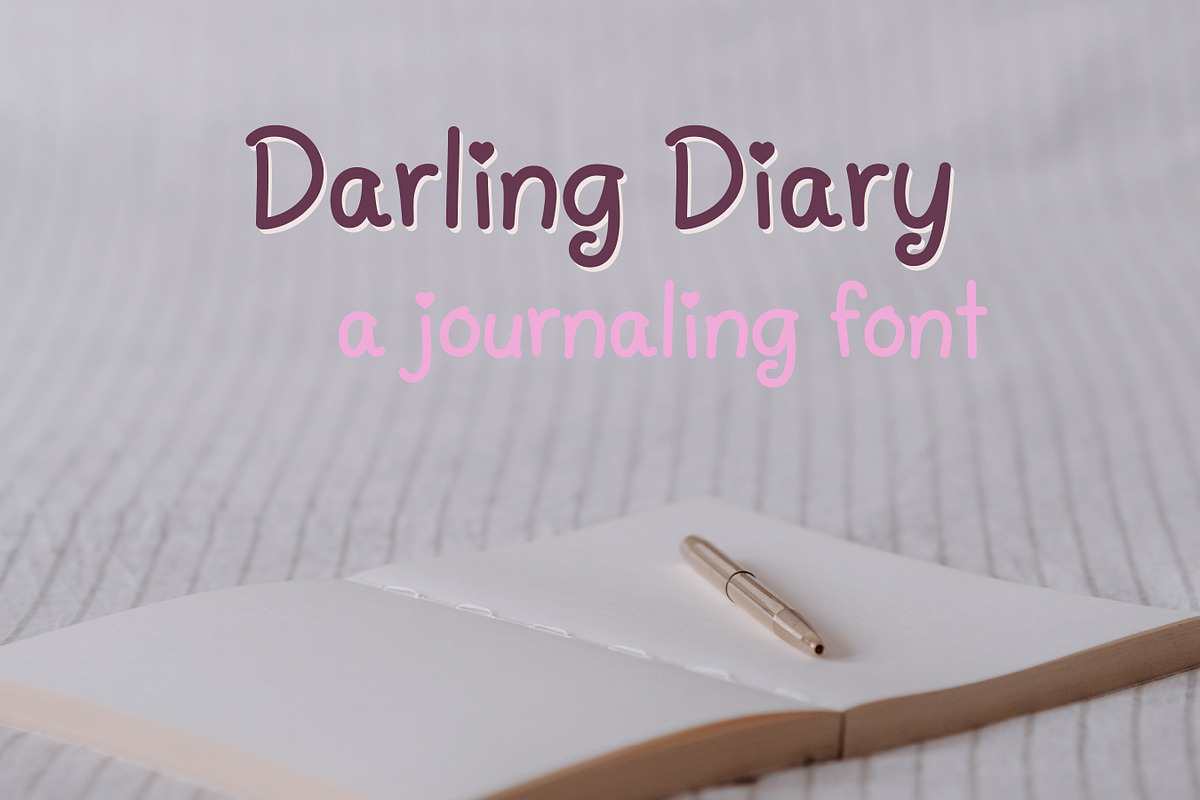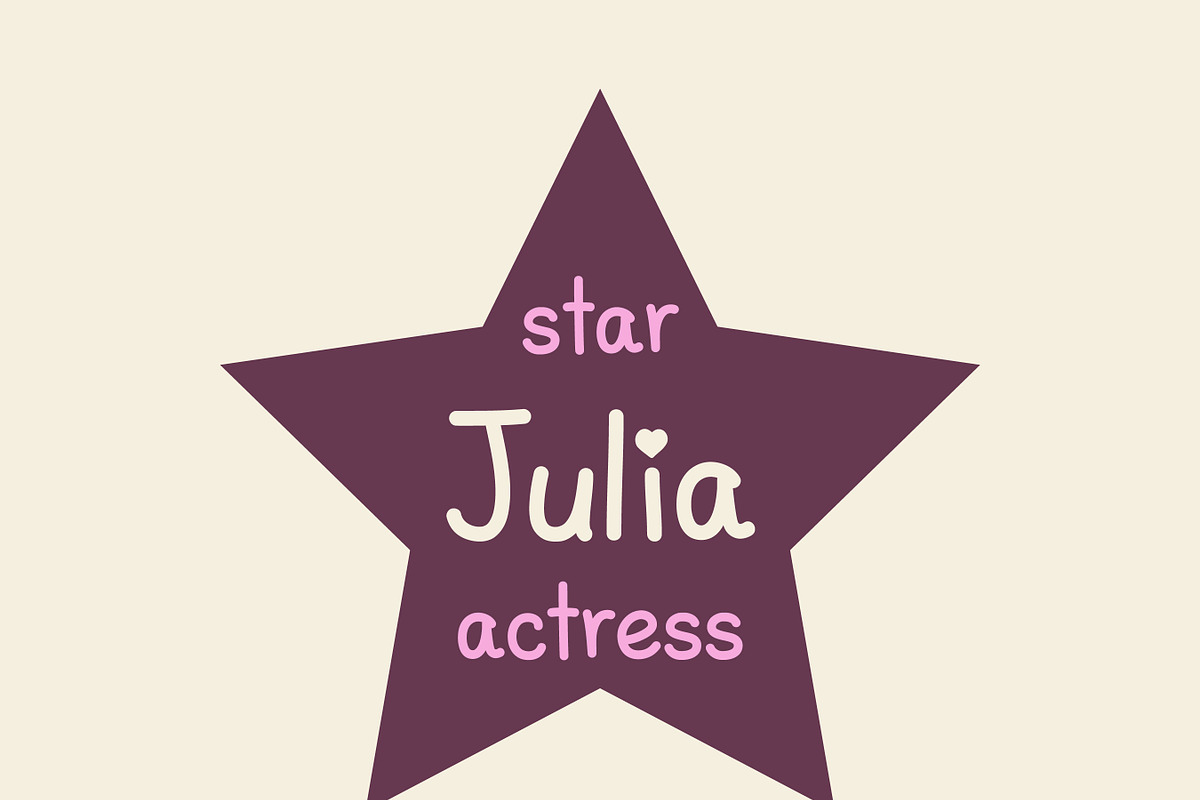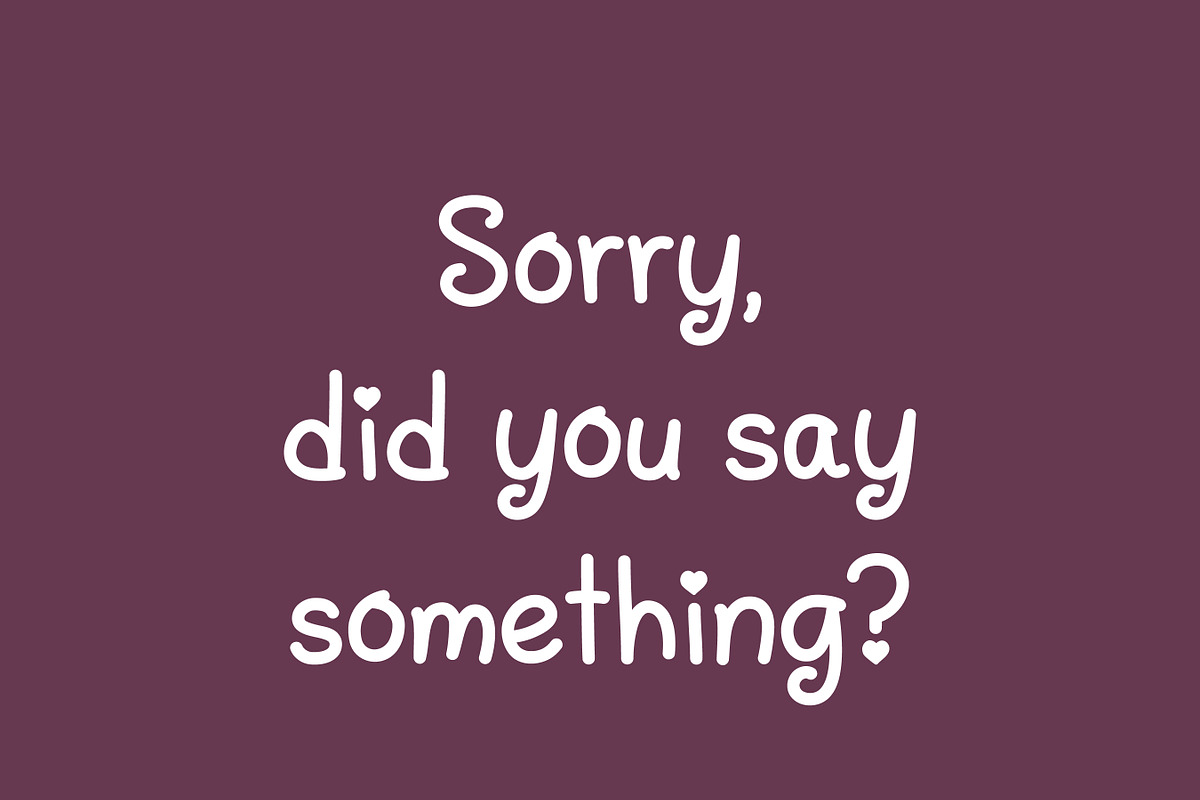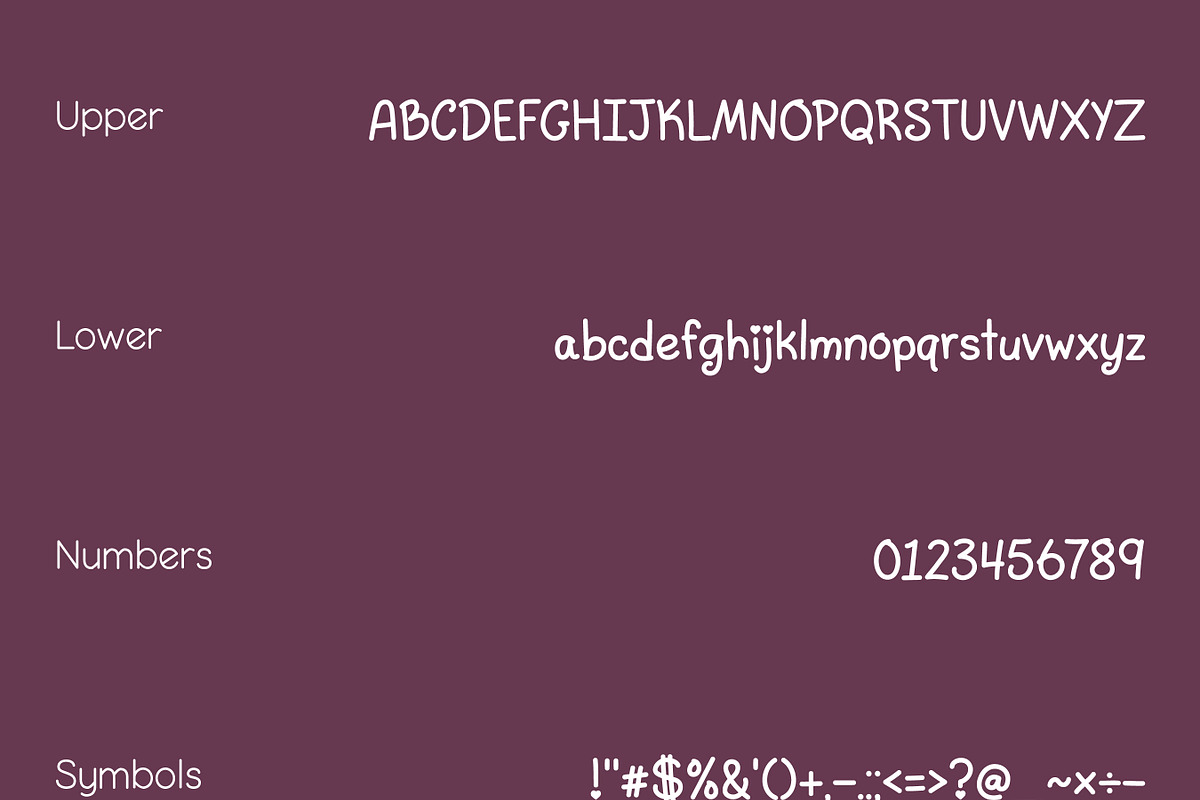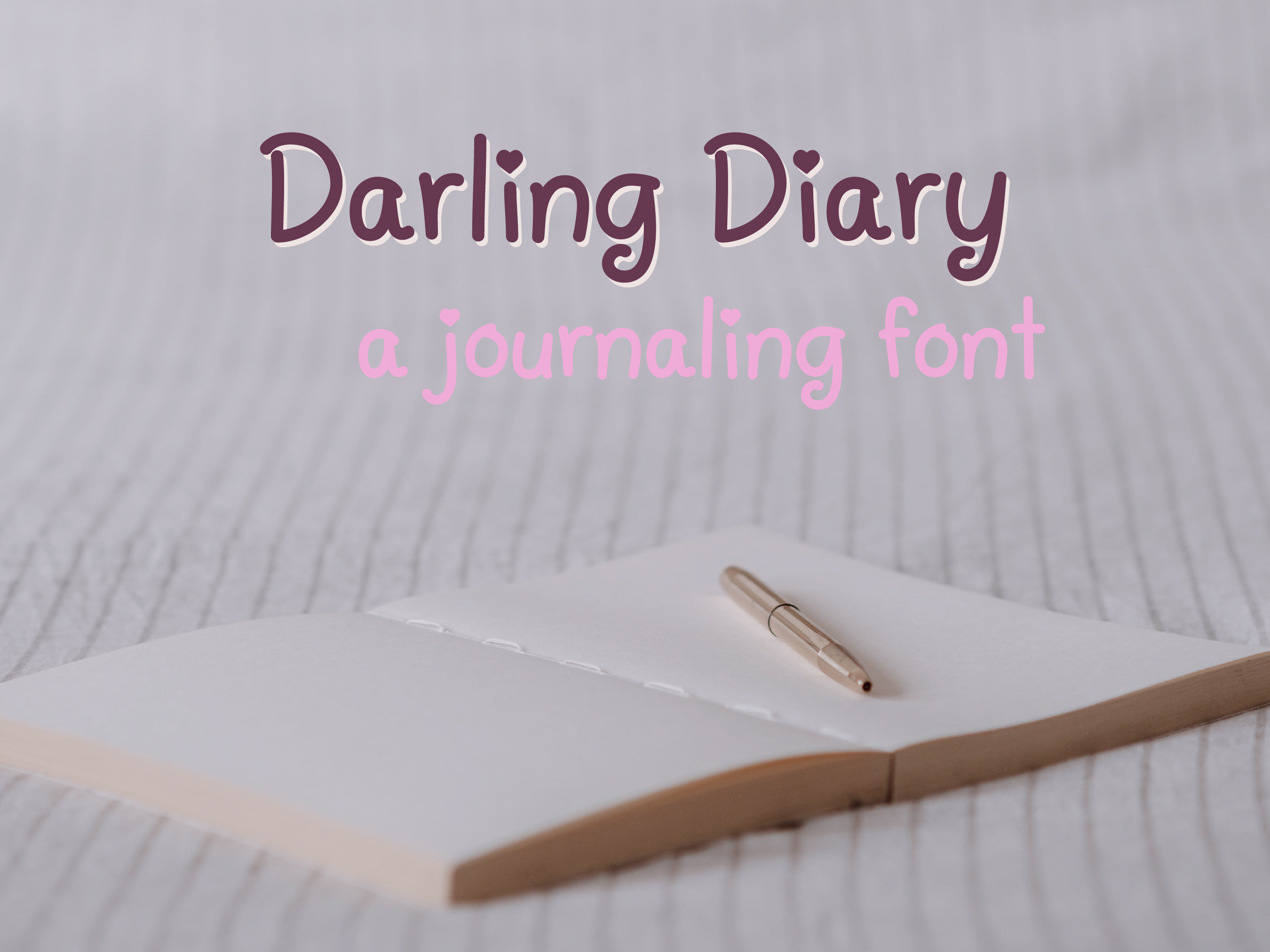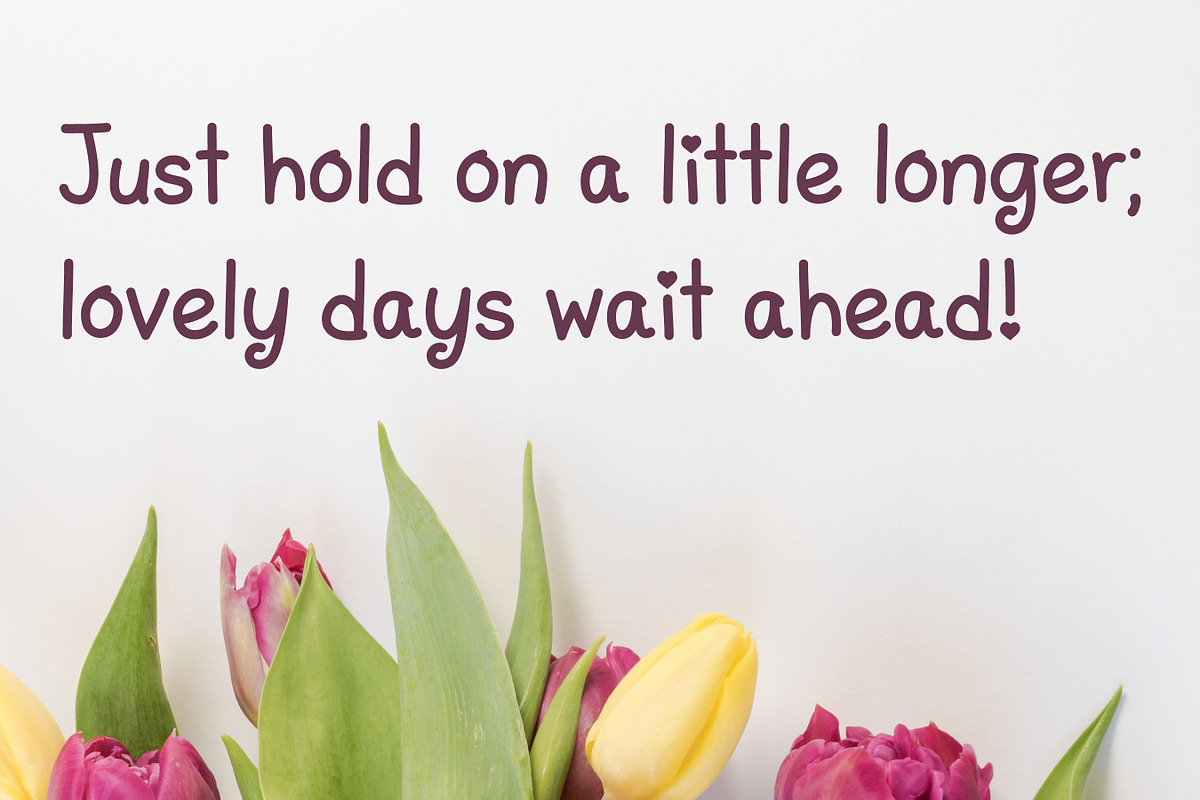
Darling Diary Font
Darling Diary is a cute and girly font perfect to use in a digital planner! It features hearts in the i, j, !, and ? glyphs for a feminine touch. The organic handwritten nature is perfect for realistic yet legible writing.
Great for branding, crafting, display font, wall art, handcrafted, hand written, handwritten, digital planner, and so much more.